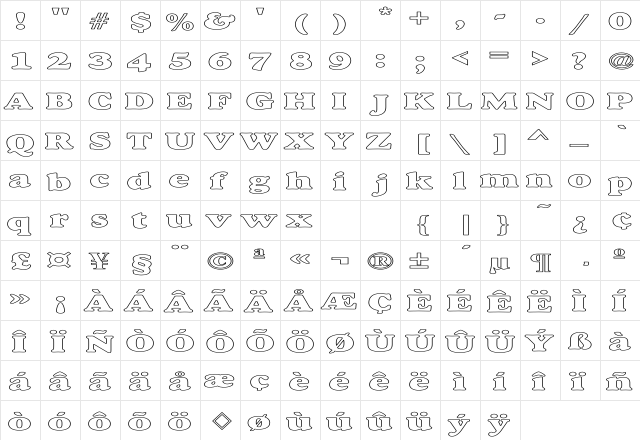
Dover Hvy Hollow Exp Regular
Design Context for Dover Hvy Hollow Exp Typeface
Dover Hvy Hollow Exp is a composed and adaptable typeface that performs quietly and consistently across a wide range of design contexts.
Pro Tip: Use Dover Hvy Hollow Exp in both headline and body roles to test its range before committing to a single application.